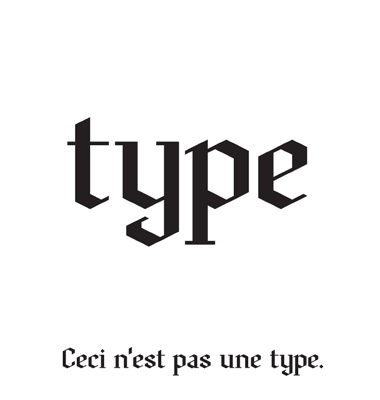
Aragorn
This is an experiment to blend blackletter and modern serif elements. Work in progress.
It's a work in progress. After 2 and a half months of incubation I decided to release this work to public scrutiny. This is an experimental project to combine blackletter and modern serif elements, and see if the result is aesthetically pleasing. Any comment, critique is welcome.
looks great! ust one question, i thought slab serifs were close to the same weight as the stems, as the stems here have so much contrast, and the serifs take cues from the thin strokes, it seems more like a blackletter/modern (think didone) combo. just a thought, and of course i could be way off :-)
And, Aragorn, eh? If I remember my LotR, this looks more like Boromir to me. Then again, I only read the book once so I am probably missing some technical nuance. Enlighten us, please.
Thank you for your comments. No harsh critique so far, but I really need some feedback before I make decisions on some glyph variations.
@SimonRobertson: Well, I'm not an expert type theorist. I only rely on some books written by experts. They describe at least seven different classes of serifs. And you are quite right about the slab serif, I was wrong. It is indeed a blackletter/modern serif, a.k.a. "abrubt contrast straight serif" combo. Thank you for the correction.
@thalamic: Aragorn or Boromir? When you read the book, you imagine the scenes, the plot, the characters. To me Aragorn is tall, elegant and kingly, who was raised in Rivendell. He is learned in ancient law, valiant, merciful, wise and noble. Boromir, a captain of Gondor, is more of a soldier, strong and brave. In type terms Boromir would be a robust slab serif or a stencil font of military style, rather than a slender typeface like this one. Before selecting a particular name for this fontstruction it had a working title. I've spent some time considering various options before I chose the present name. I think the blackletter elements reflect his connection to the glorious past (he is the last member of an ancient royal dynasty), and the modern serif parts may refer to the future, he brings to mankind, the Age of Men. My only concern is that my design might not be good enough, worthy to his name.
This has the makings of a real FS classic. Elegant and useable ... one could almost imagine it being used for ........
Do you know the work of Vojtěch Preissig?
@gferreira: Yes, I know his works very well. The Czech Modernist set is featured in the first Indie Fonts book, p.215. I was fascinated by those letterforms, and experimented with some FS adaptation only to conclude the current set of bricks does not support those various angles. Yes, the m,n looks similar, but the present work is more of a continuation of my Nimrodel-Legolas line. At least the first primitive glyphs came from there.
This is coming along nicely. Faves: l/c a, cap Y, both g variants, ALL the ligs (they're so beautiful).
this is not a type ... it's enough to make ma grit ma teeth :)
@p2pnut: I think you are the only one who understood my reference to René Magritte's famous work, La Trahison des images (Ceci n'est pas une pipe), 1929. (The betrayal/treachery of pictures, This is not a pipe). I just could not resist the opportunity of the obvious parallel: you are not seeing my type, but a picture/screenshot of it. Magritte teaches us that sometimes our perception fail, and there is a fundamental difference between the real thing and its pictorial representation.
really cool work here !!! work really well on your sample "type"! Can't wait the full set
Hey Frodo7, I love this font. You've totally nailed it. Are you thinking about maybe doing the rest of the caps soon?